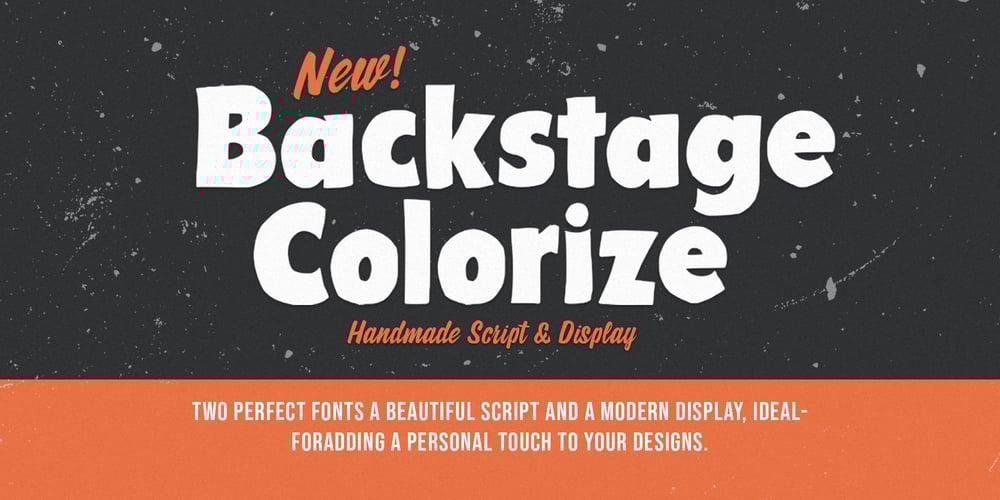
Backstage Colorize Script
Backstage Colorize Script font
Backstage Colorize Script Font Family was designed by Naufal Paramata and published by Youngtype. Backstage Colorize Script contains 2 styles and family package options. Backstage Script & Backstage Display is a hand brush font made with brushes and ink. This typeface is ideal for use in thick watercolor designs or handwriting styles, such as blog titles, posters, wedding elements, t-shirts, clothing, book covers, business cards, greeting cards, branding, merchandise etc.Contains full set : Uppercase Lowercase Ligatures Punctuation number multilingual support. Thank you!